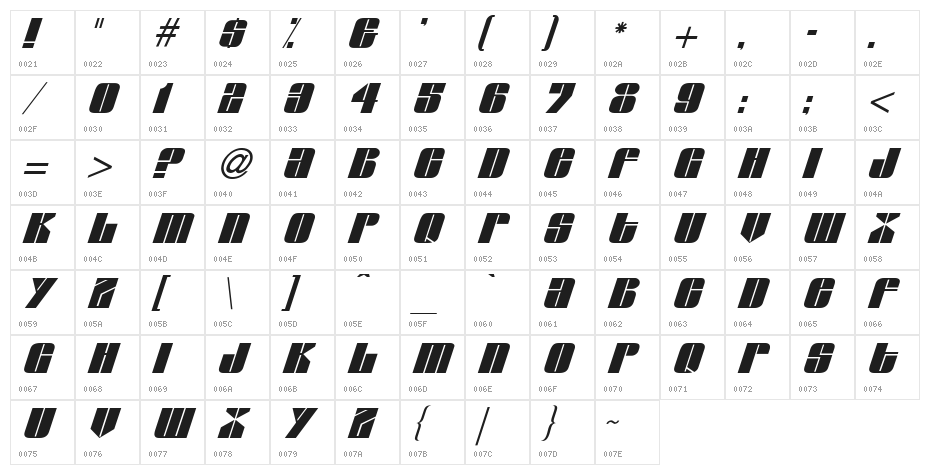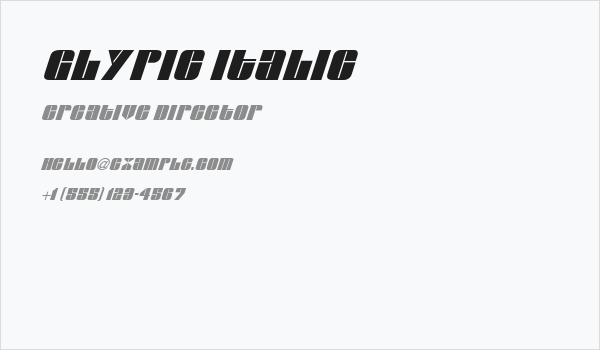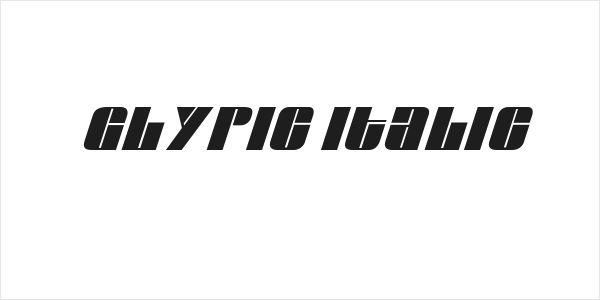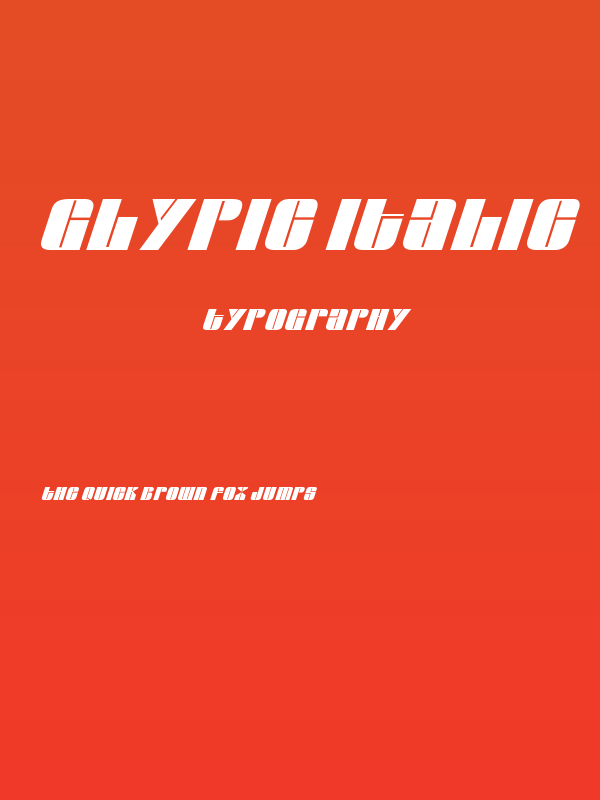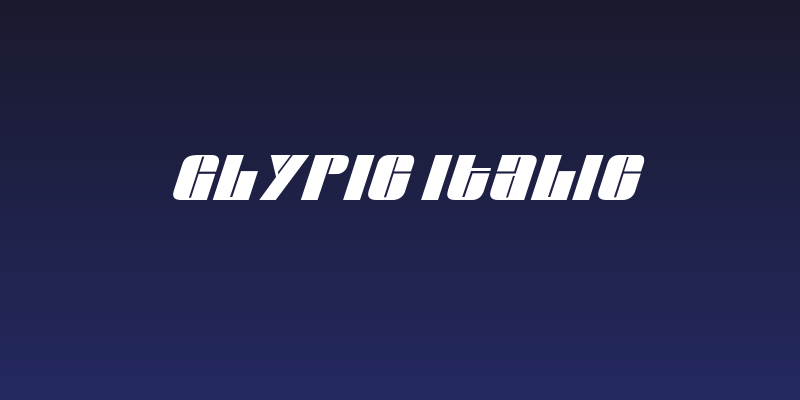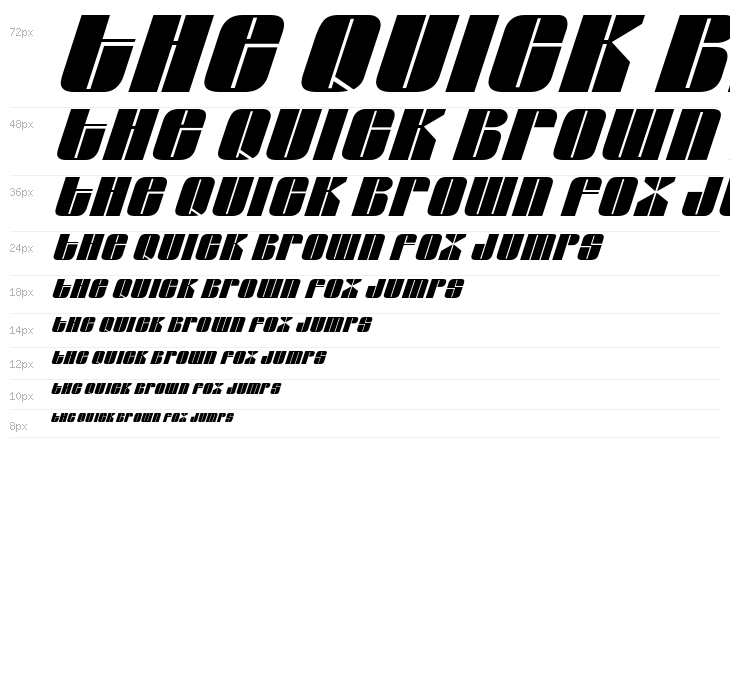
Glypic Italic Font
Glypic Italic Description
This font features a bold and dynamic design with a distinct italic slant, giving it a sense of movement and energy. The characters are constructed with thick, solid strokes, creating a strong visual impact. Each letter is uniquely styled with angular cuts and sharp edges, contributing to a futuristic and modern aesthetic. The uppercase and lowercase letters maintain a consistent style, while the numerals and special characters are equally bold and striking. This font's design is ideal for making a statement, with its high contrast and wide character width enhancing its readability and presence.
| Proposed Projects | Ideal for branding, posters, headlines, and any design project requiring a bold, futuristic look. |